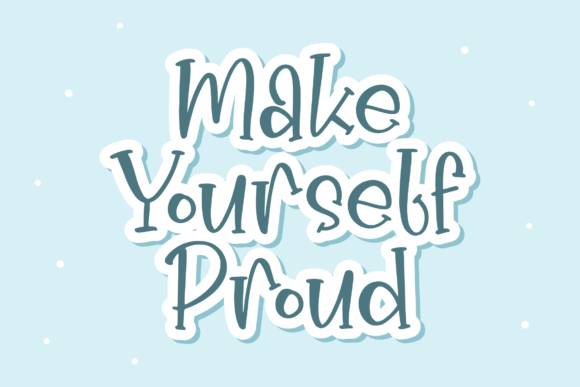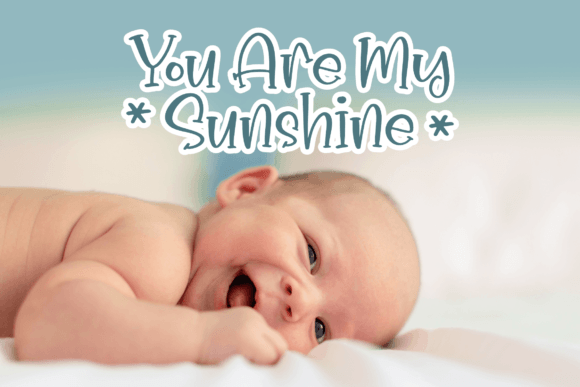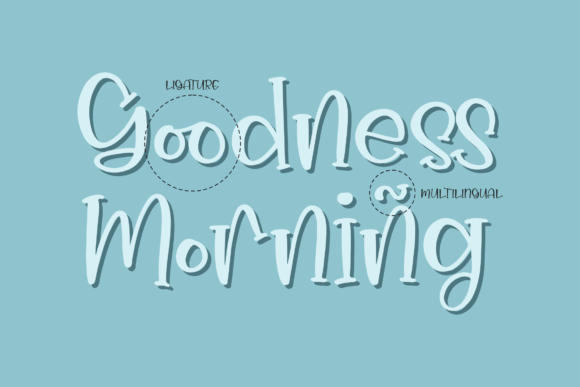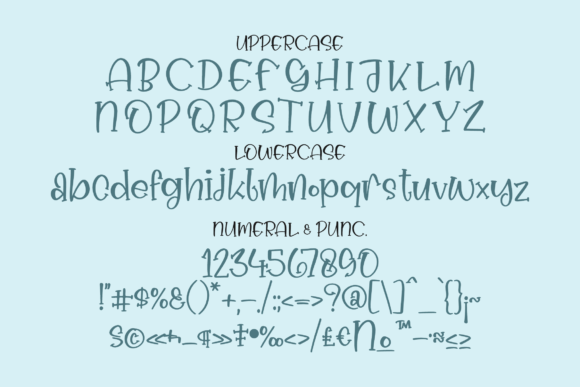
About Sky Cracker Font
Sky Cracker is a beautiful handwritten font that adds a touch of elegance and sophistication to a diverse range of creative projects. Its versatility makes it an excellent choice for various design applications, allowing you to infuse a stylish and beautiful script into your projects.
The font’s adaptability is evident in its suitability for logos and branding projects. Sky Cracker’s handwritten style brings a unique and refined charm to logos, contributing to the creation of a distinctive brand identity that exudes sophistication.
For homeware designs, product packaging, and mugs, Sky Cracker imparts a sense of style and sophistication. The font’s elegant script enhances the overall visual appeal, making your products not only visually appealing but also exuding a refined and classy aesthetic.
Sky Cracker is well-suited for conveying quotes, creating posters, and embellishing shopping bags. Its handwritten elegance adds character and warmth to these applications, ensuring that your messages are not only visually captivating but also carry a touch of graceful personality.
When applied to T-shirts, book covers, name cards, invitation cards, greeting cards, and labels, Sky Cracker introduces a beautiful script taste, elevating your designs with a touch of stylish individuality. The font’s fluid and expressive strokes seamlessly integrate into a variety of print materials.
In the realm of photography and watermark applications, Sky Cracker provides an elegant and stylish signature, adding a subtle yet distinctive touch to your images. Special events, such as weddings or celebrations, are enhanced by the font’s sophisticated script, creating an atmosphere that is both refined and memorable.
In summary, Sky Cracker is not just a font; it’s a versatile design asset that brings elegance and style to your projects with its beautiful handwritten script. Whether you’re working on branding, product design, print materials, or special events, Sky Cracker is a beautiful choice for adding a stylish script taste to your lovely and creative endeavors.